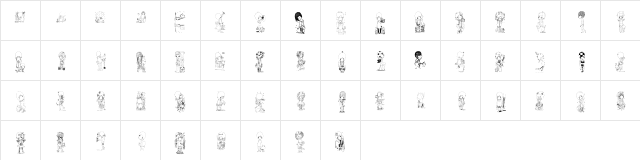
morito-font Regular
Design Context for morito-font Typeface
morito-font is a composed and adaptable typeface that performs quietly and consistently across a wide range of design contexts.